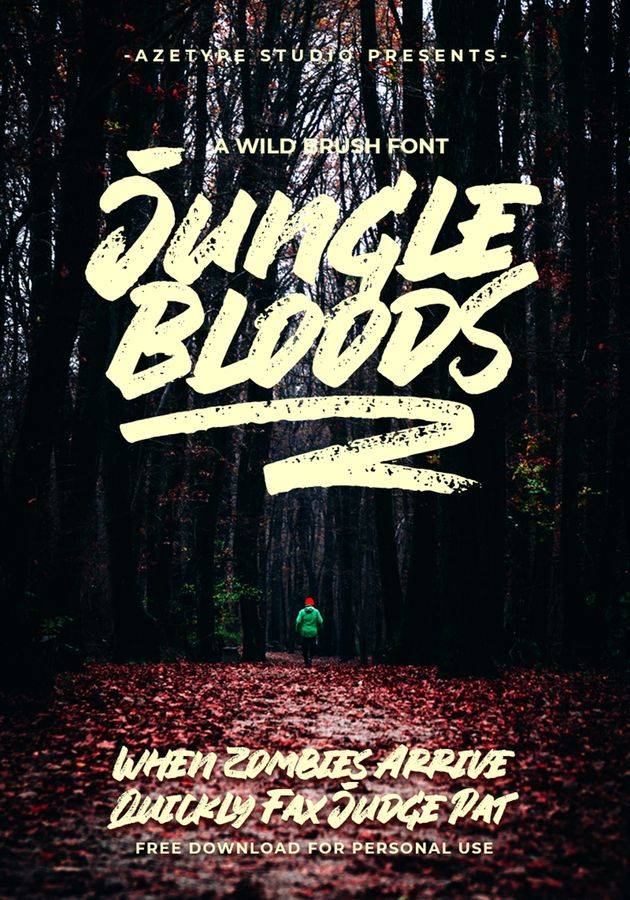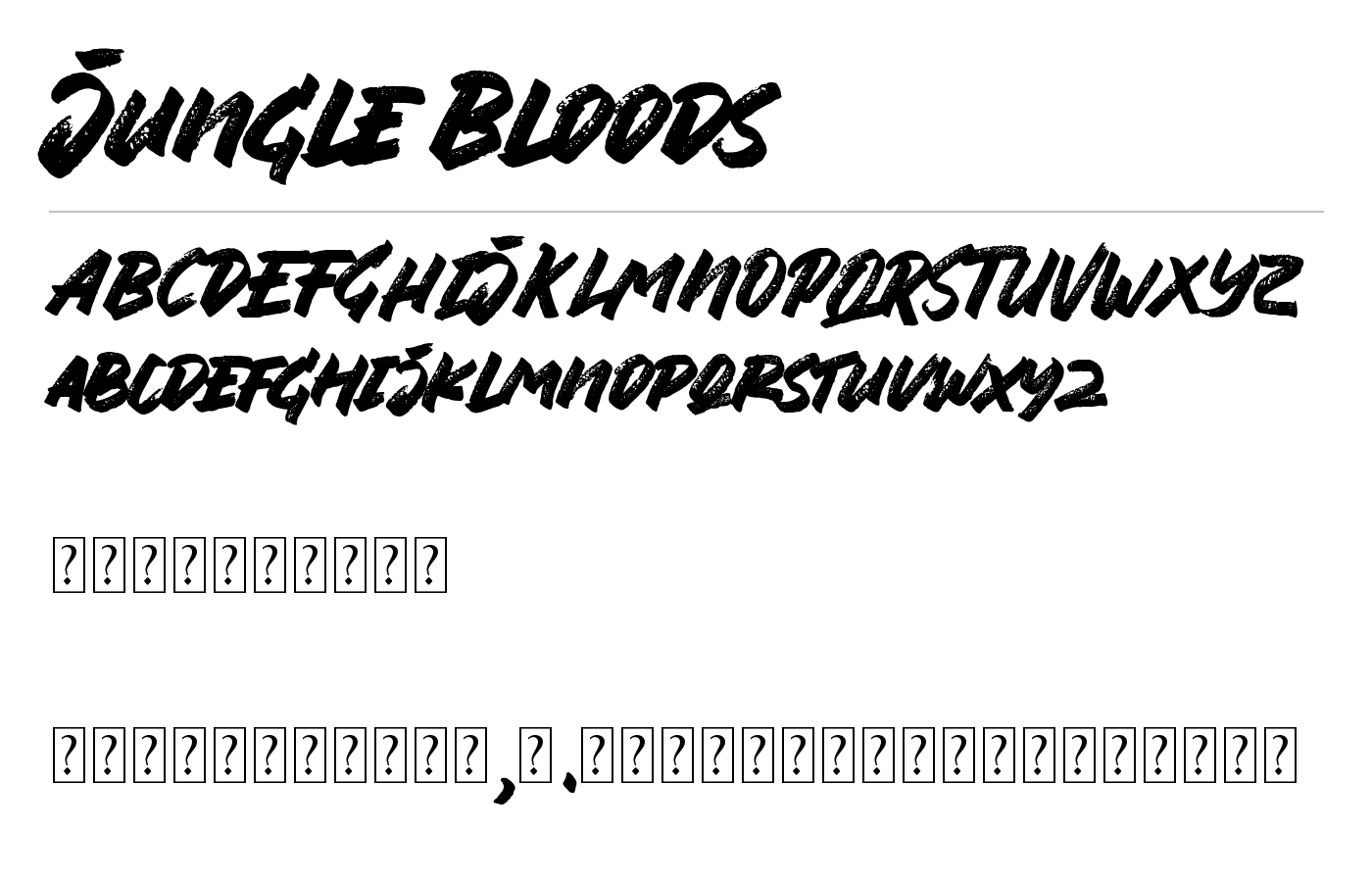
Jungle Blood Handlettering is a bold, dynamic brush script font with a strong, textured style that feels lively and energetic. Its irregular, handcrafted strokes lend it an adventurous and raw character, perfect for designs needing a bold statement with a natural, expressive vibe. This font works well in branding, posters, and packaging where a rugged, artistic touch can capture attention and convey an edgy, creative mood.
Jungle Blood Handlettering
About Jungle Blood Handlettering
| Font family | Jungle Blood Handlettering |
| Designer | Muh. Aswar and ABdul Muthalib from Azetype Studio |